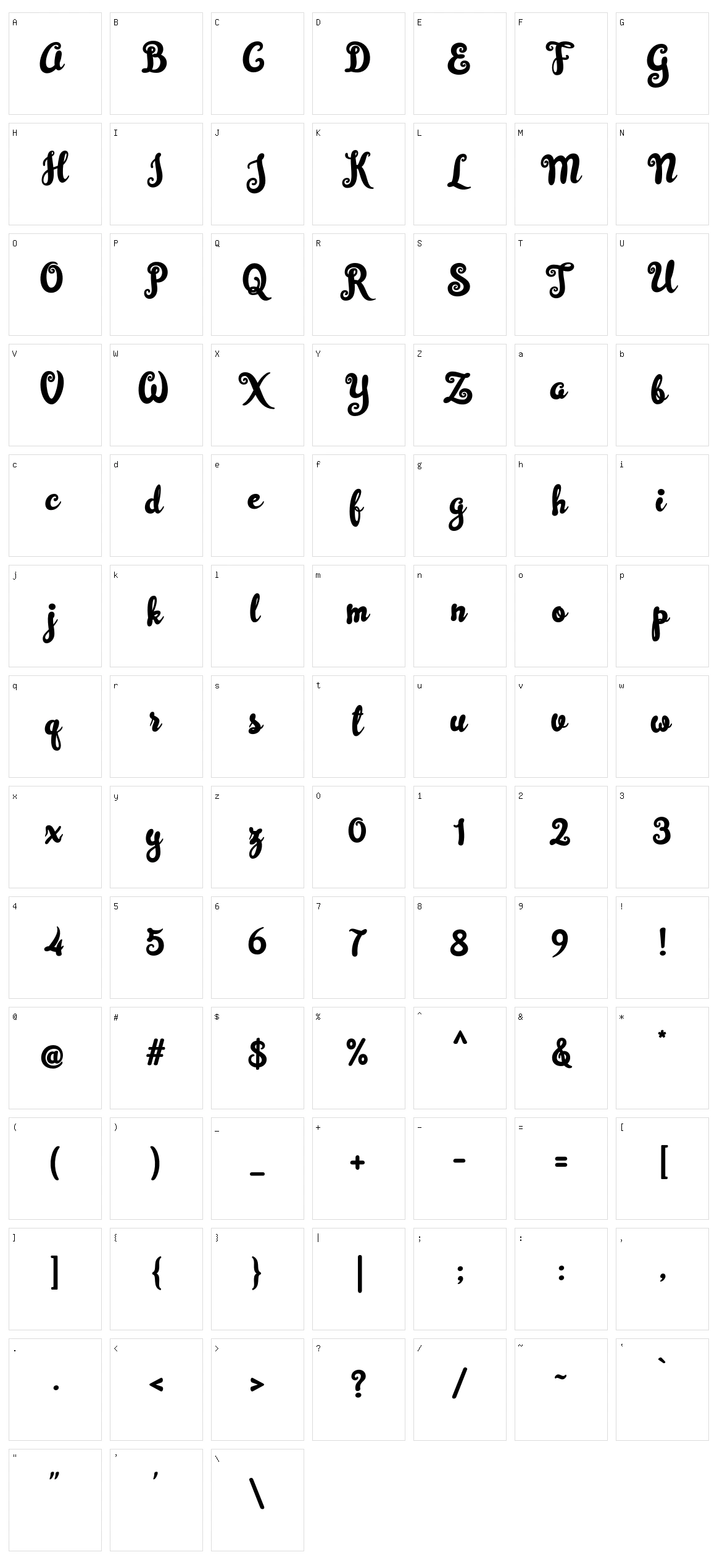
- Swash for initial lowercase just active if you insert "space" before.
- Initial and Final form active if you activate Stylistic Alternates.
- Always activate Standard Ligatures feature
For use swash please type "<" before letter or">" after letter (activate Contextual Alternate feature first)
Example for my main display is: Simplisicky>>>>>>>>
Manual closer of final character you can find at last glyph on Character Map.